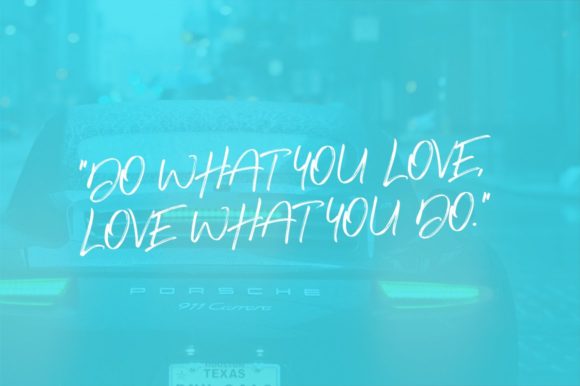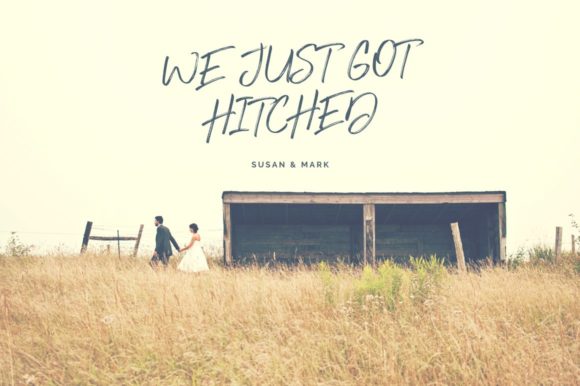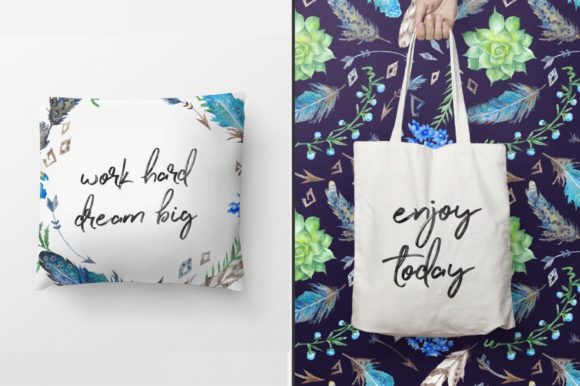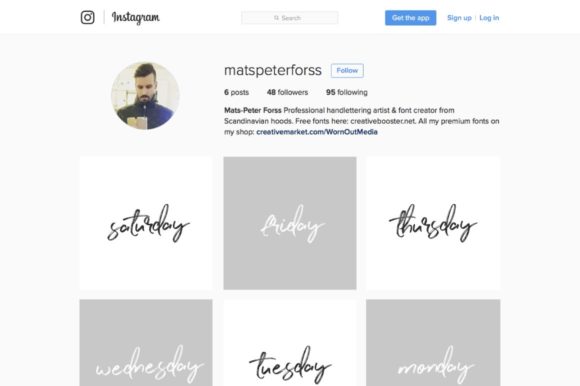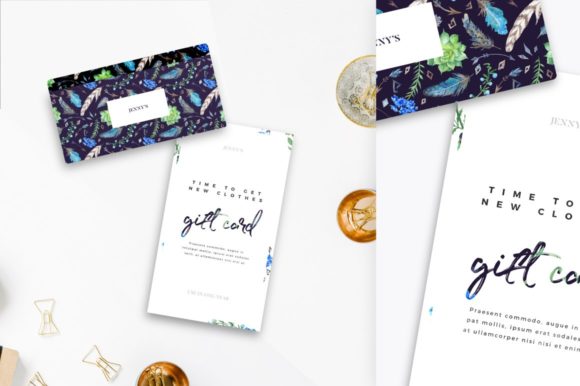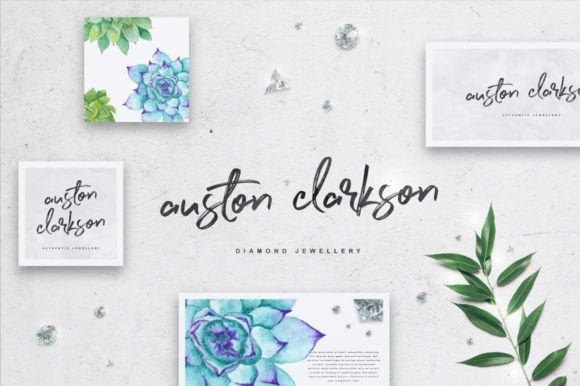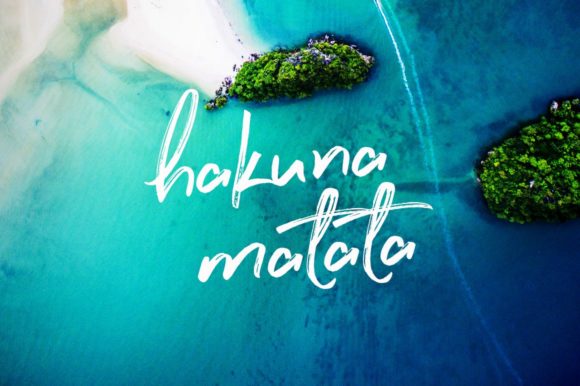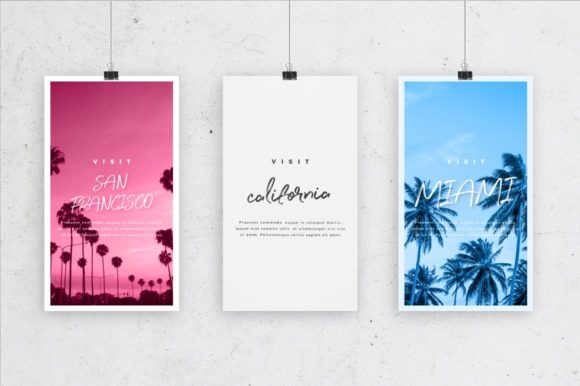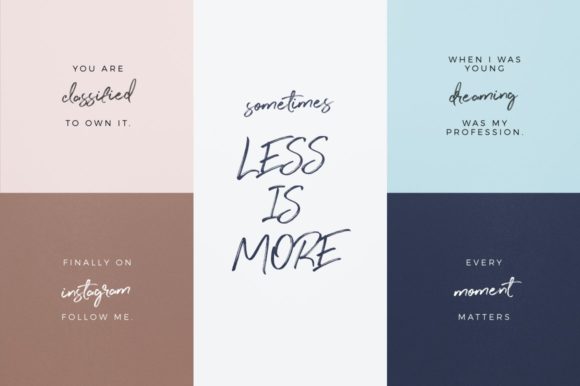
HomeScript FontsPerfect Sunset Font Script Fonts Perfect Sunset Font FacebookXPinterestWhatsApp Perfect Sunset Font Poster 2 Perfect Sunset Font Poster 3 Perfect Sunset Font Poster 4 Perfect Sunset Font Poster 5 Perfect Sunset Font Poster 6 Perfect Sunset Font Poster 7 Perfect Sunset Font Poster 8 Perfect Sunset Font Poster 9 Perfect Sunset Font Poster 10 About Perfect Sunset Font Perfect Sunset is a sweet and charming script font that celebrates all things summer. DOWNLOAD ON CREATIVE FABRICAThis font is sold and delivered by Creative Fabrica. Font Canyon may earn a commission if you buy through this link. People also explored Mallorca Script Font Herbivora Font Sydrone Font Bunny Font Lalica Font Zeenn Font Moonstone Font Art School Dropout Cartier Font 332 0 TagsPerfect Sunset Font Previous articleSaturday FontNext articleSteadfast Font LEAVE A REPLY Cancel reply Comment: Please enter your comment! Name:* Please enter your name here Email:* You have entered an incorrect email address! Please enter your email address here Website: Save my name, email, and website in this browser for the next time I comment. Personal Use Free The Quick Personal Use Free Read more about this font Screengem Personal Use Free Read more about this font Open Store Personal Use Free Read more about this font Grillin Personal Use Free Read more about this font BLOG How to Cut Any Font on Cricut: Convert a Font to SVG (Free) Turn any font into a clean SVG so it cuts crisp on Cricut - a quick 3-step workflow using a free font-to-SVG tool. 5 Fonts That Will Dominate Design Trends in 2026 Where to Buy American Fonts Online in 2024 How to Install and Use Fonts on Windows, macOS, and Web Projects